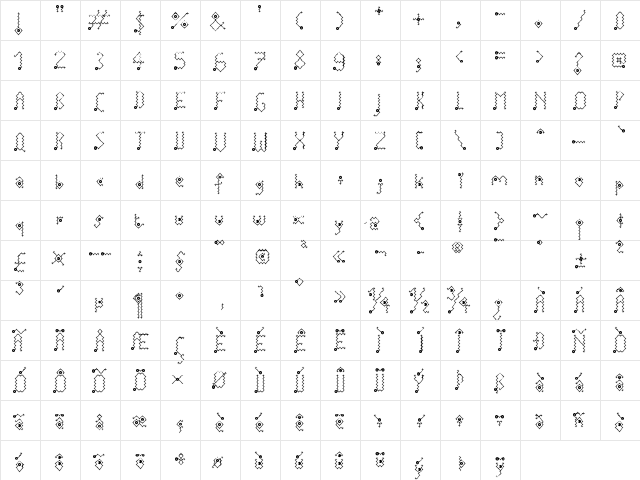
electric bowl Regular
| Designer | balion |
Design Context for electric bowl Typeface
electric bowl channels digital-age aesthetics through its sharp, structured letterforms — ideal for brands that want to signal innovation.
Pro Tip: Try electric bowl with generous letter-spacing in UI labels and navigation — the geometric forms benefit from room to breathe.